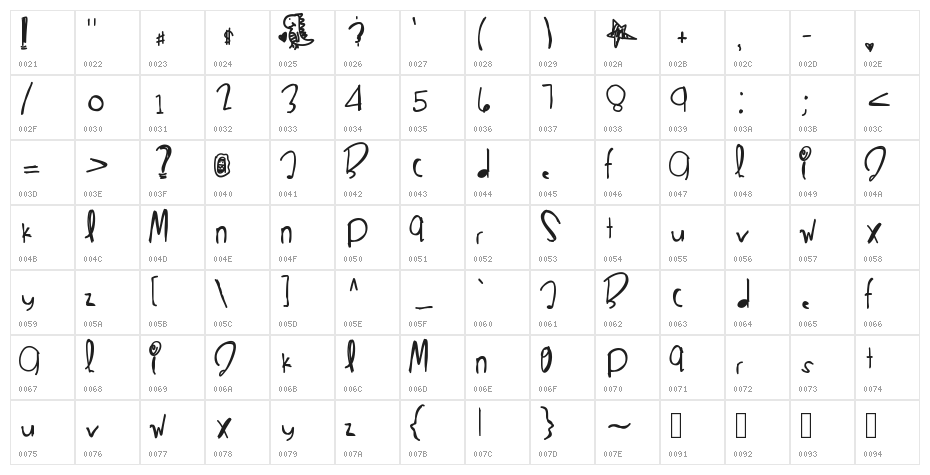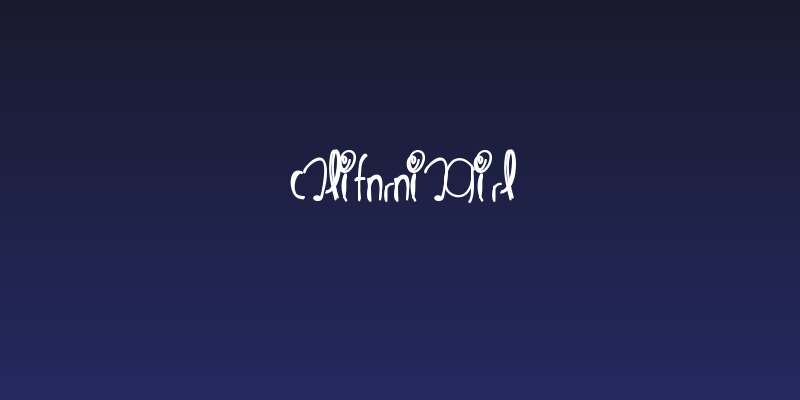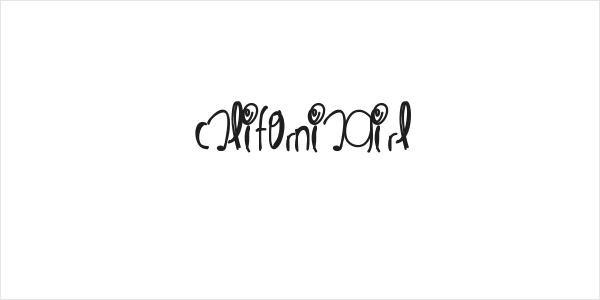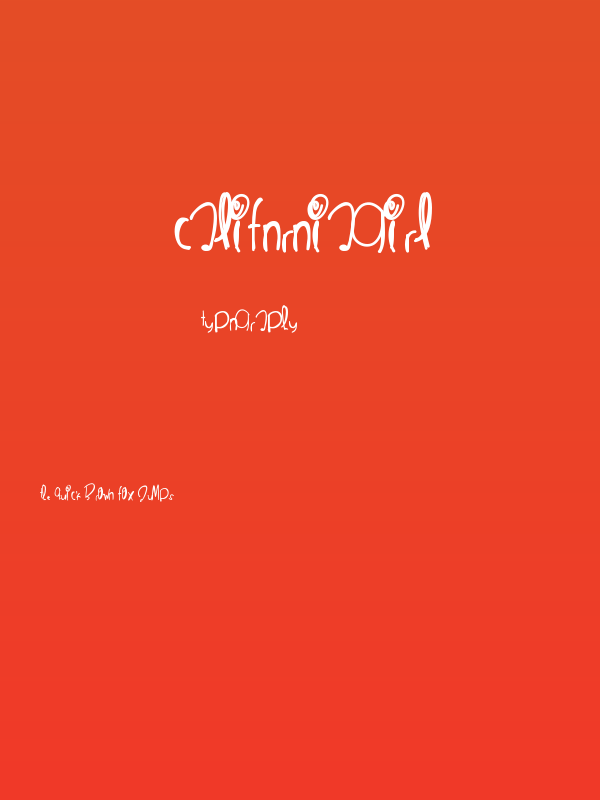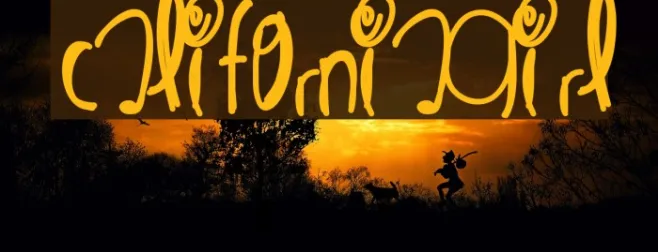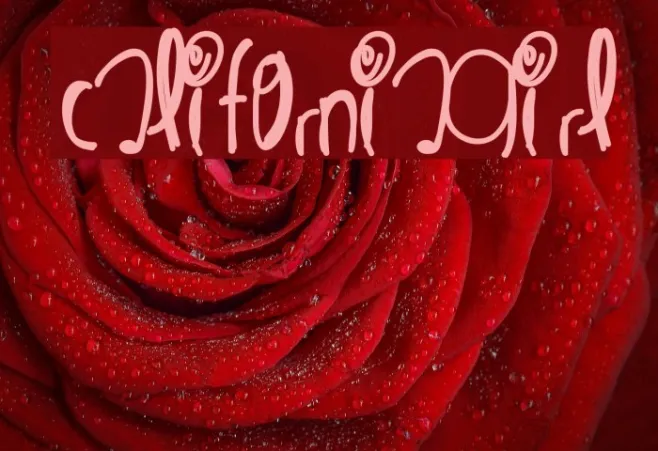
CaliforniaGirl Font
CaliforniaGirl Description
This playful and whimsical font features a handwritten style with a casual and informal appearance. The letters are characterized by their irregular shapes and varying stroke widths, giving them a dynamic and lively feel. The uppercase and lowercase letters blend seamlessly, creating a cohesive look. The numbers and special characters maintain the same playful aesthetic, adding to the font's overall charm. This font is perfect for projects that require a personal touch or a fun, creative vibe.
| Proposed Projects | Ideal for greeting cards, children's books, playful branding, and creative social media graphics. |